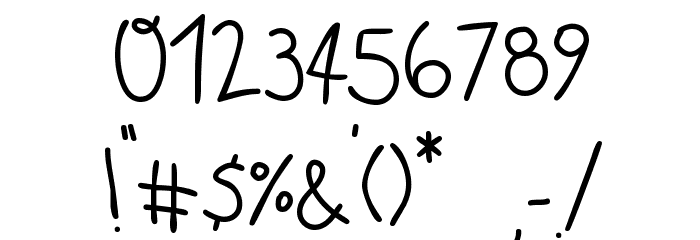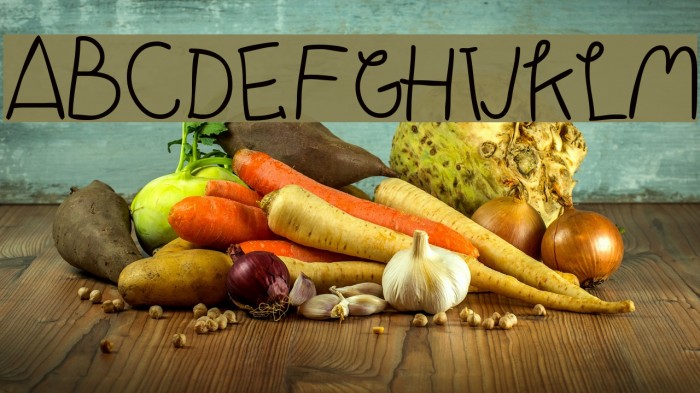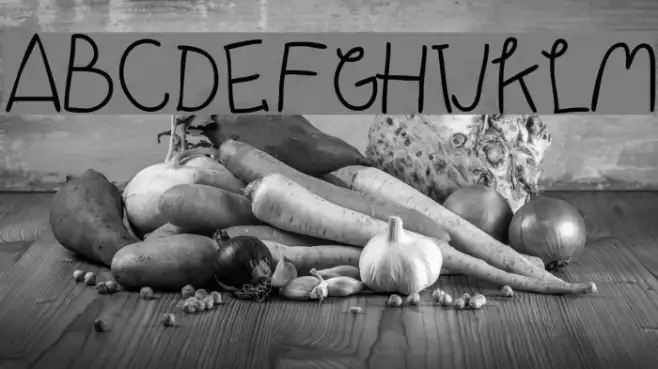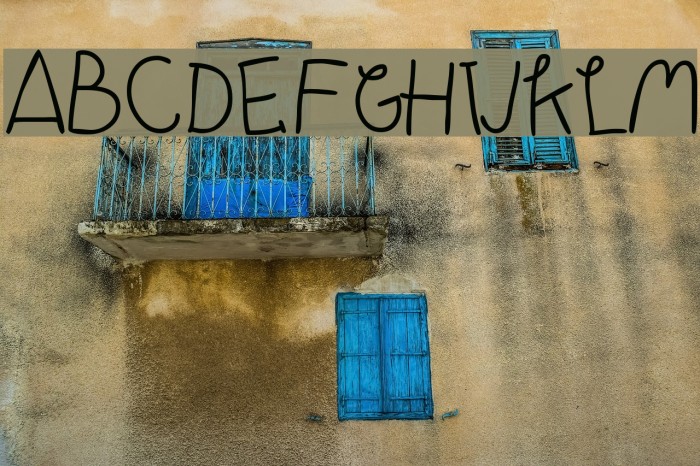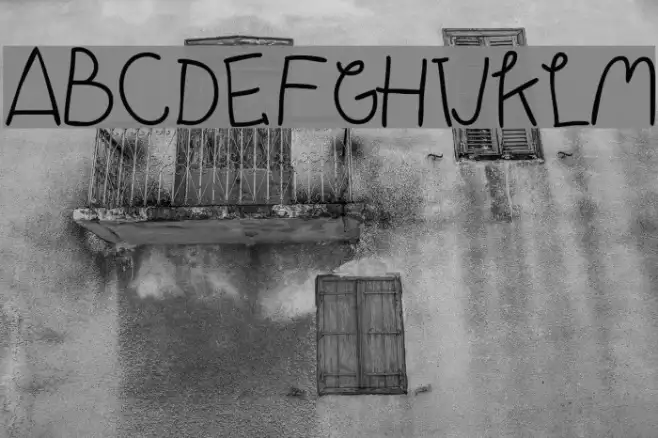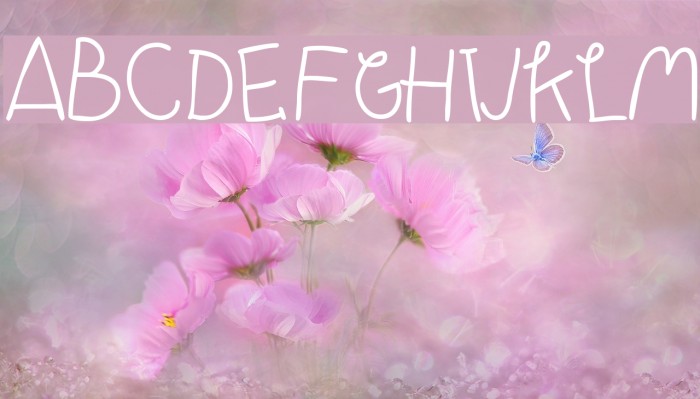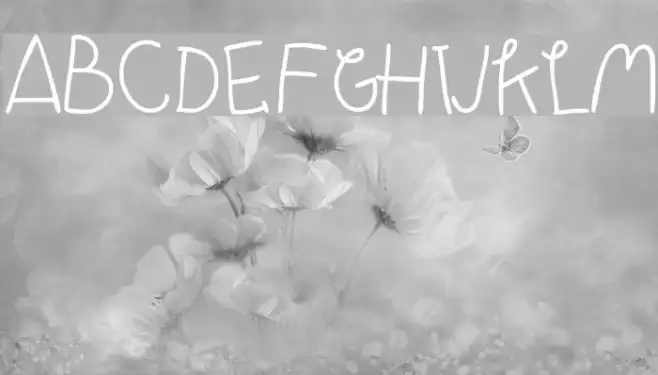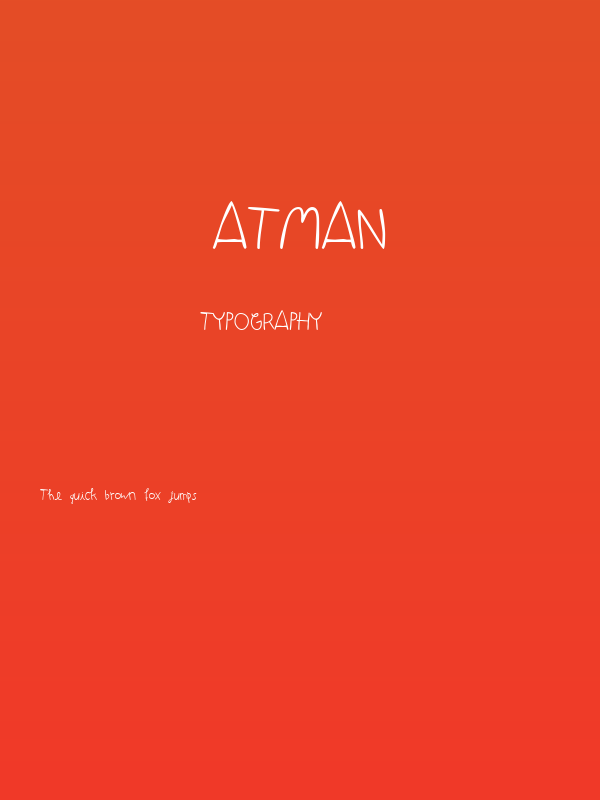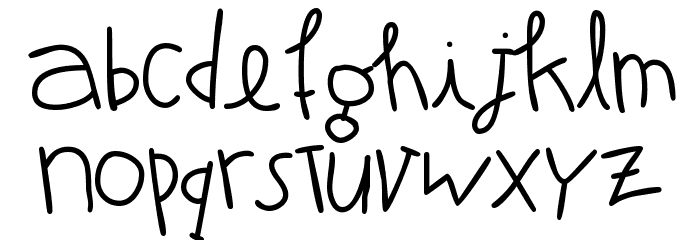
Atman Font
Atman Description
This playful and whimsical font features a handwritten style with a casual and friendly appearance. The letters are slightly irregular, giving it a unique and personal touch. The strokes are smooth and rounded, with a consistent thickness throughout. The uppercase and lowercase letters maintain a cohesive look, while the numerals and special characters complement the overall style. This font exudes a sense of creativity and informality, making it ideal for projects that require a personal or artistic flair.
Overall StylePlayful, Whimsical
Use CaseHeadlines, Informal text, Creative projects
Proposed ProjectsIdeal for children's books, greeting cards, personal blogs, and creative branding projects.